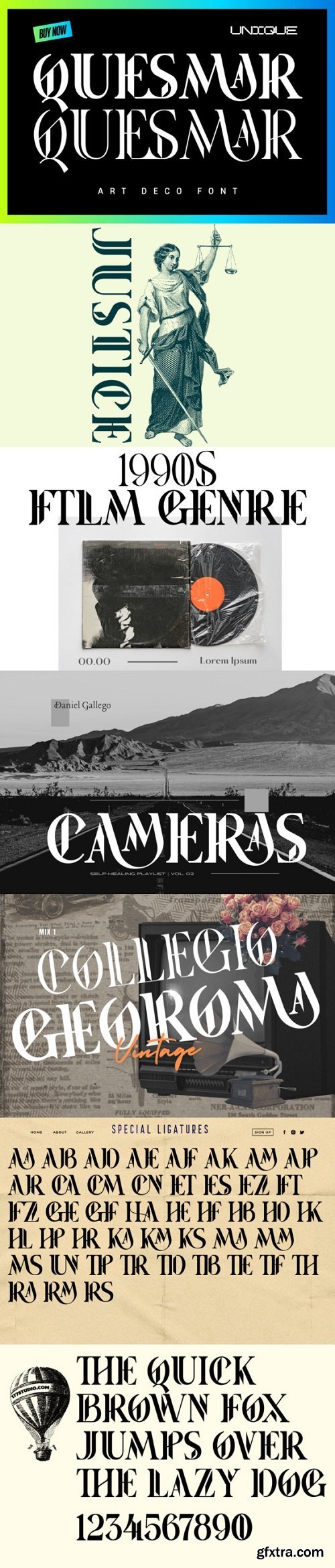
queeasmar Font
Quesmar is a basic serif font designed in an Art-Deco style adding a vintage look. With its unique style, this typeface will enhance any artistic project you wish to create!